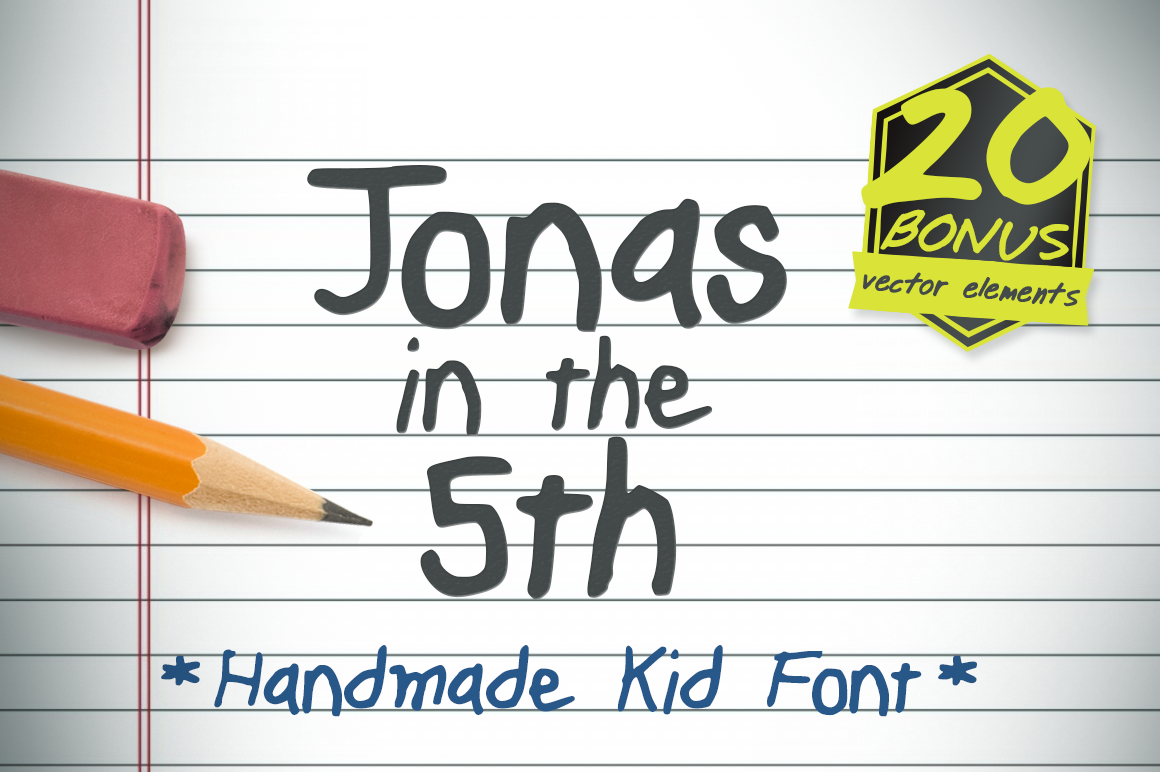
Jonas in the 5th Hand Drawn Kid Font
Jonas In The 5th is a new marker-drawn, hand-written font that brings to life the fun and freedom of 5th grade. It's a perfect fit for invitations, comics, journals, logotype, and whatever else needs a flair of youthful energy.